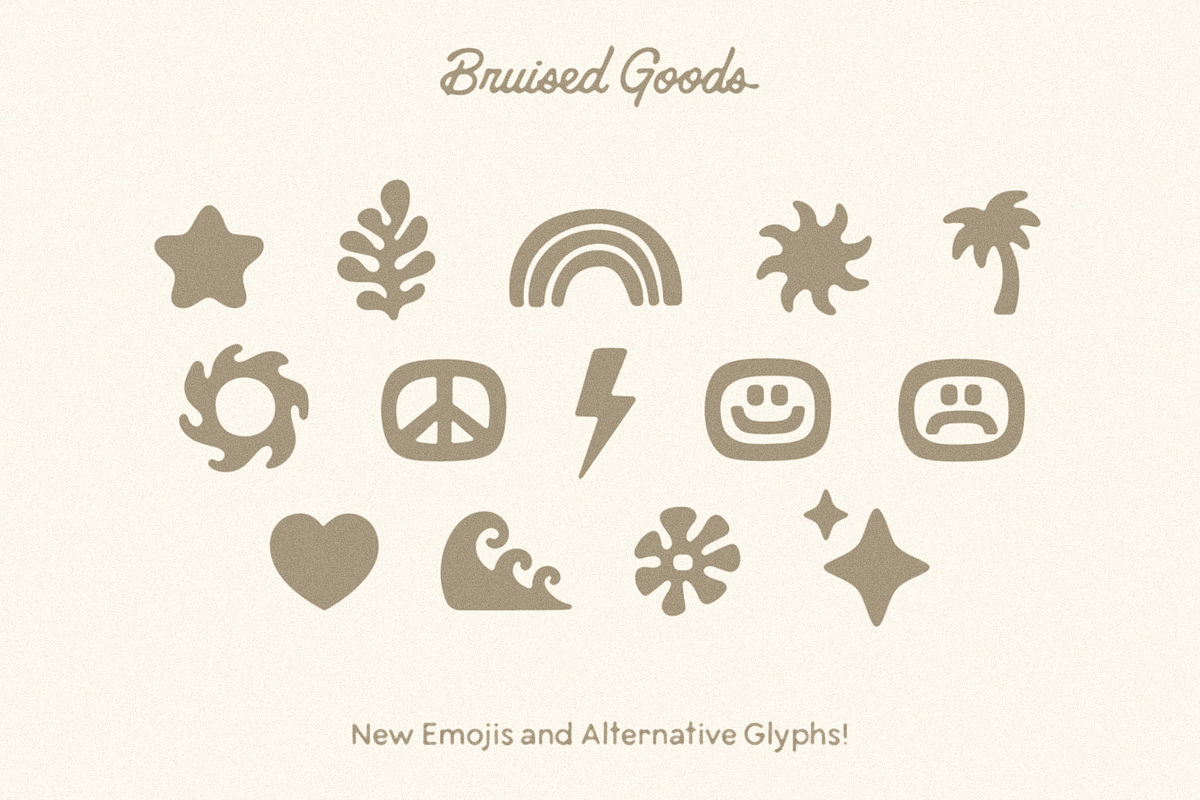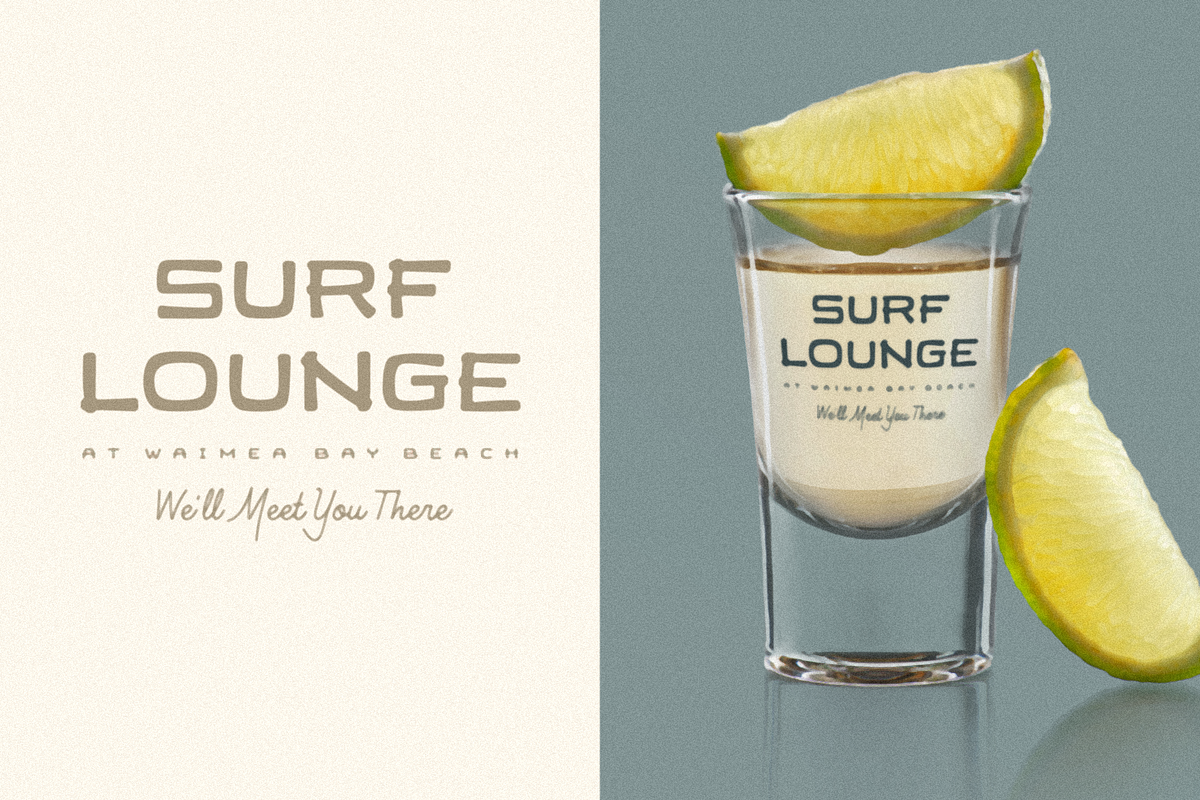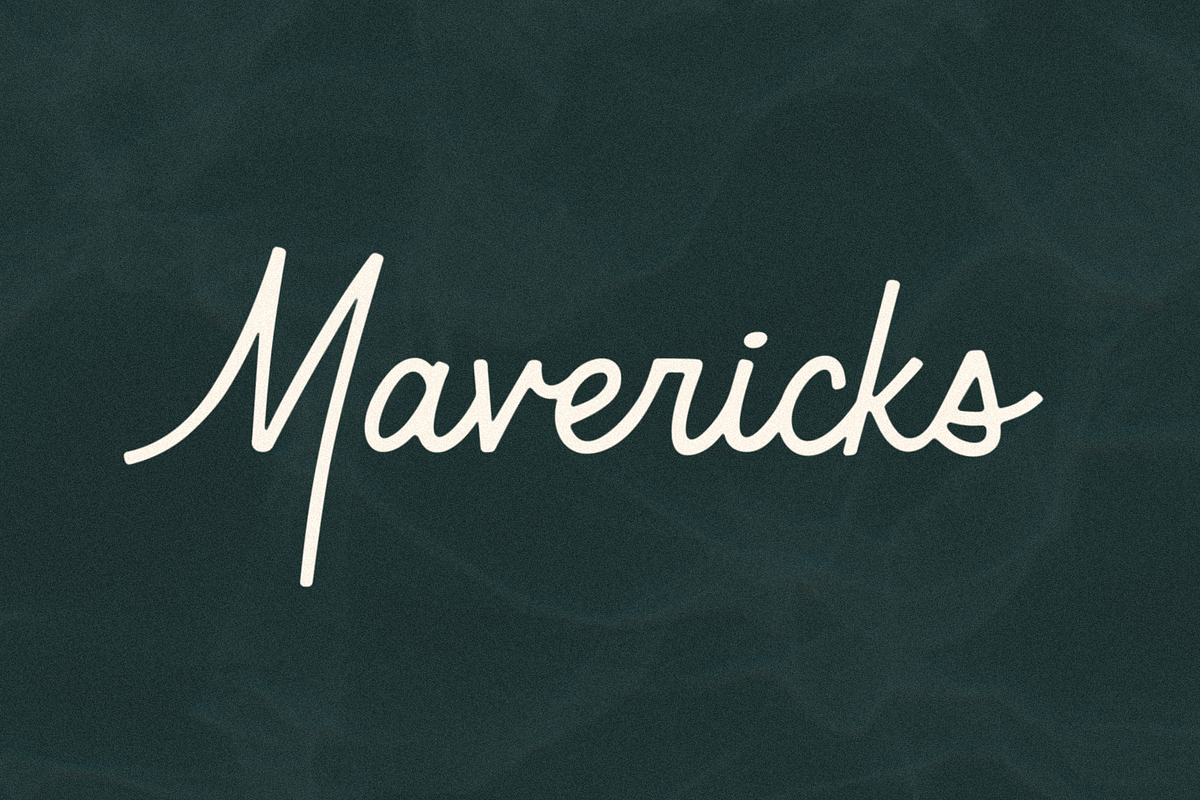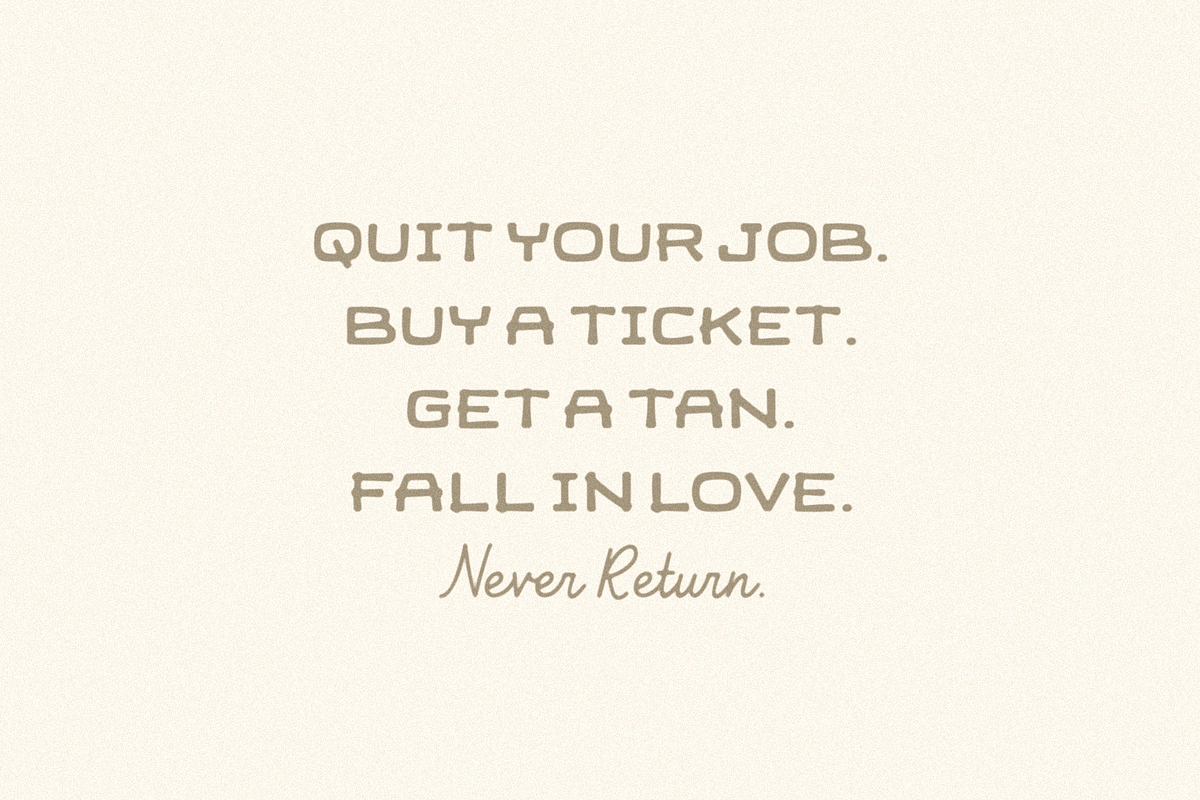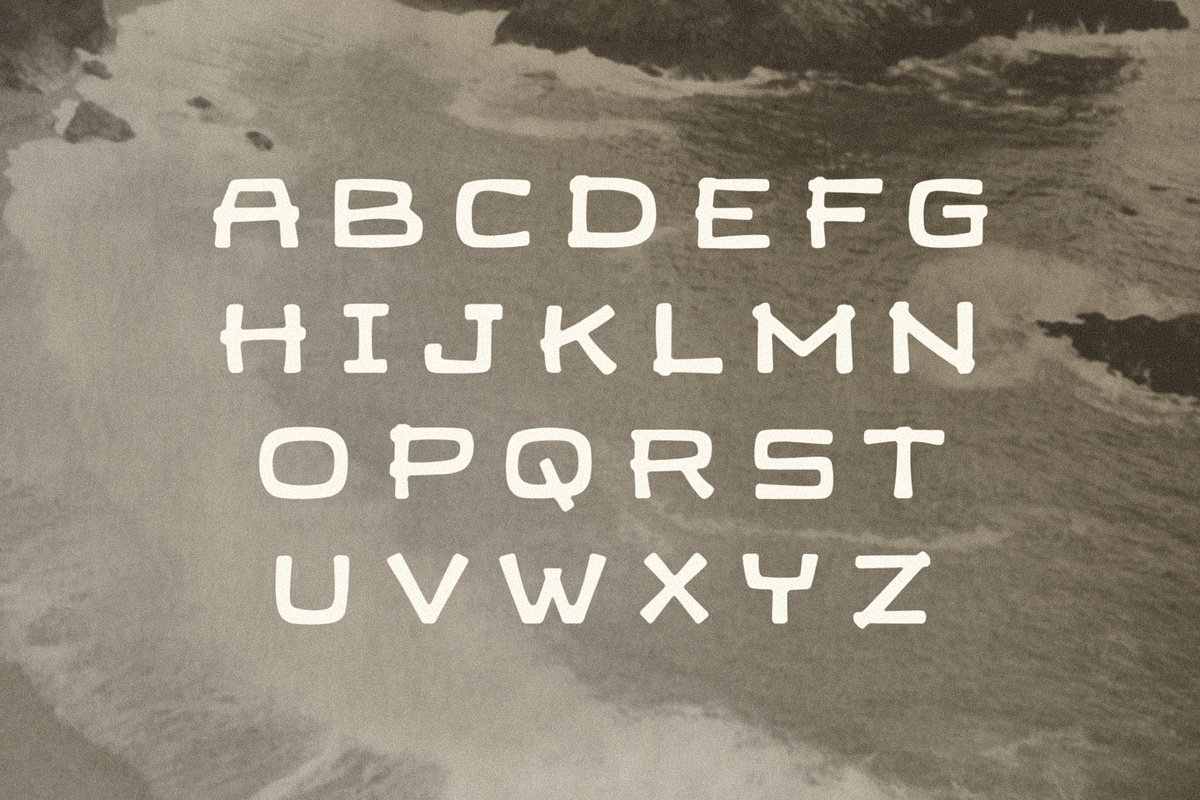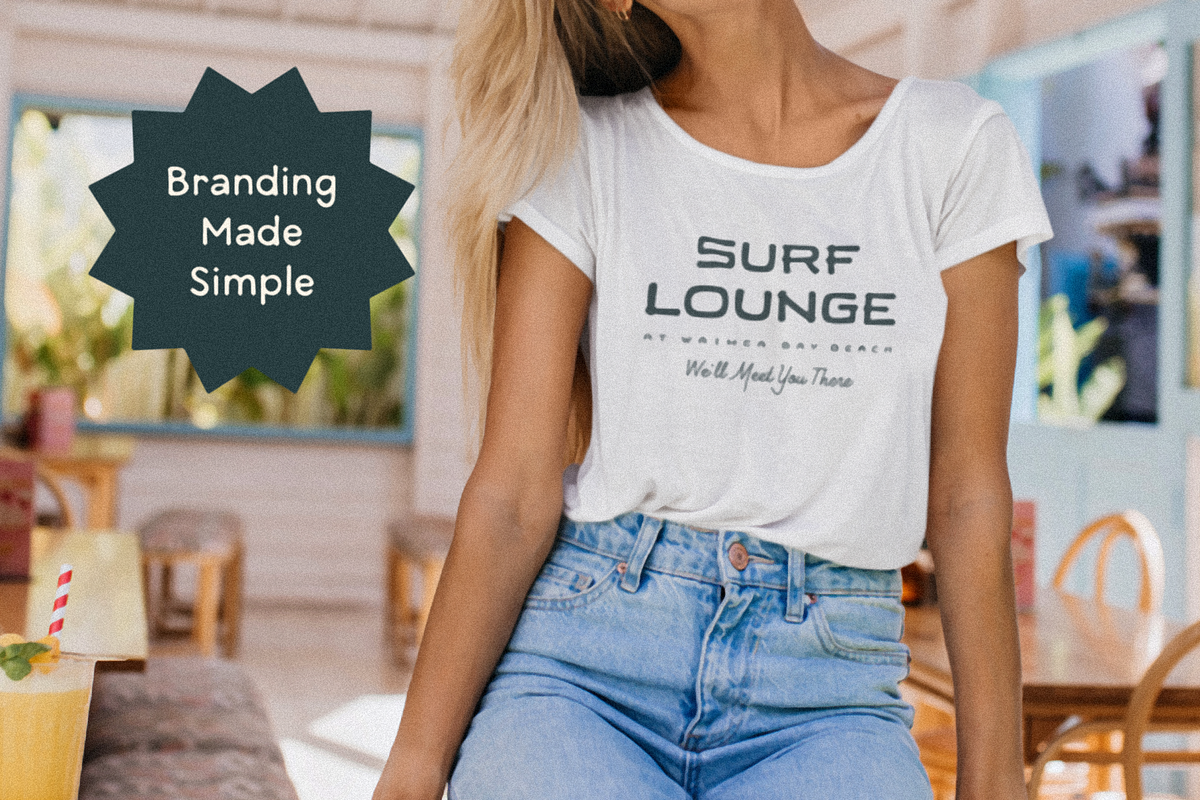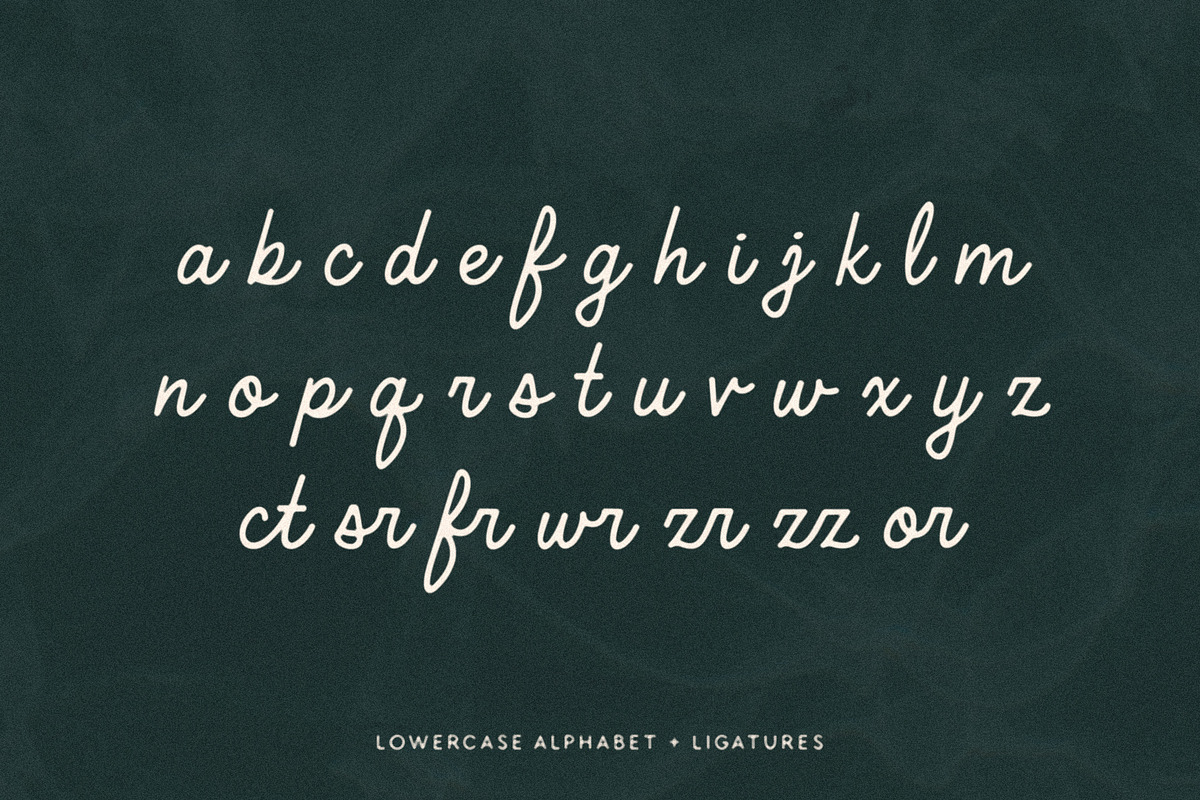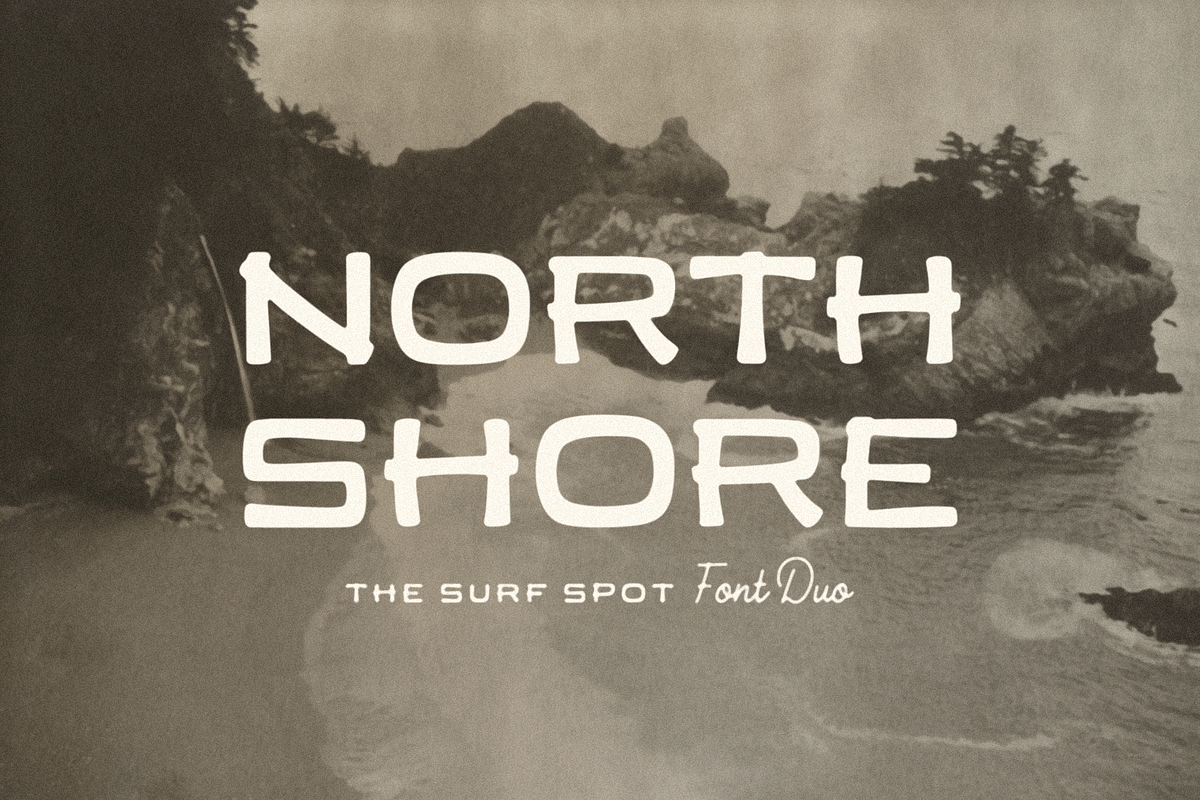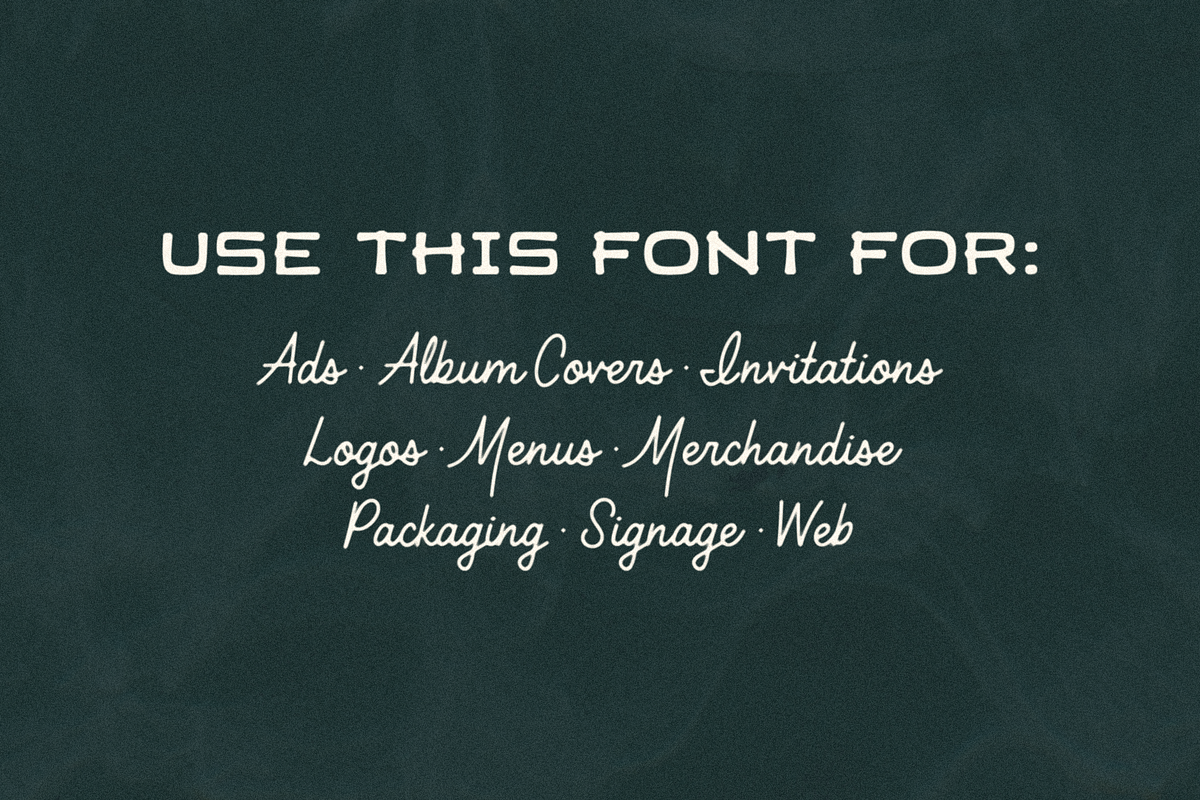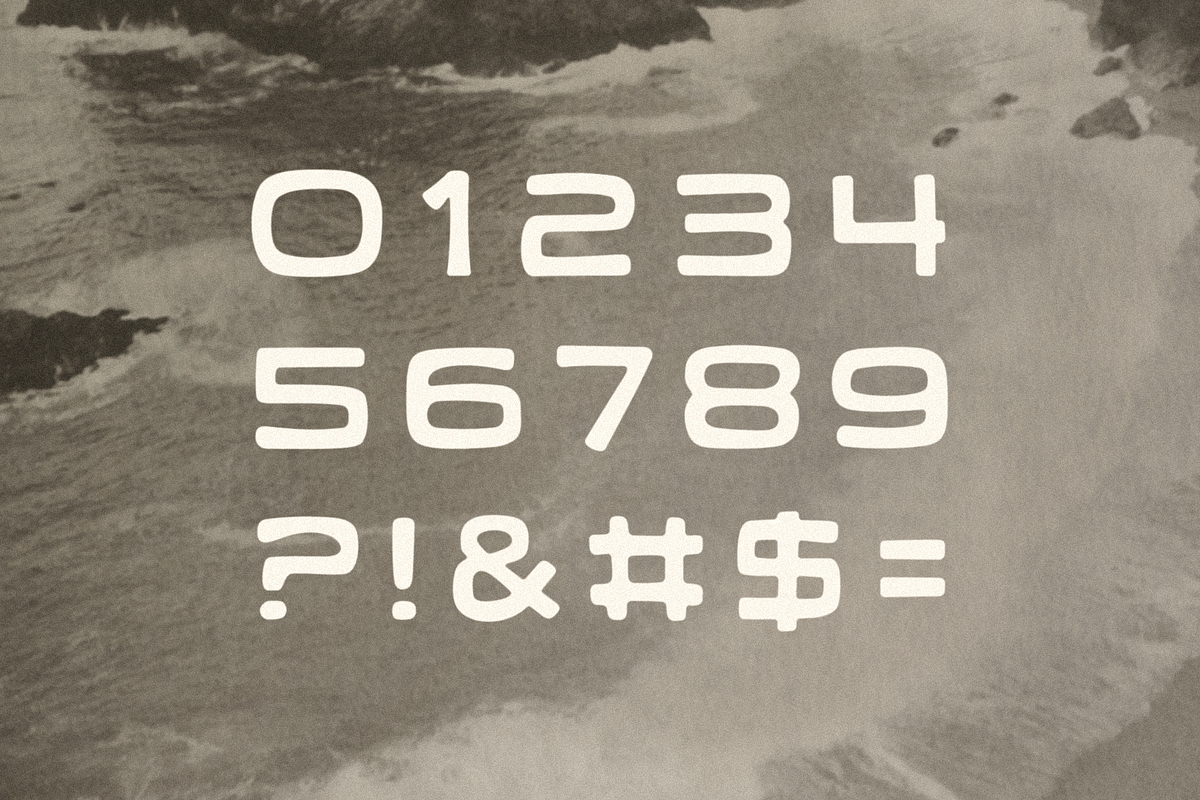
North Shore + Mavericks
NORTH SHORE + MAVERICKS – The ultimate Hawaiian surf spot font duo, both groovy and mid century inspired. Designed by Lauren Kilbane.
North Shore:
- Tropical Display Font
- 204 Glyphs Total: Uppercase ONLY, Numbers, Symbols, Punctuation, & Language Support.
- Language Support: Danish, English, French, German, Irish, Italian, Portuguese, Spanish, Swedish, & Swiss German.
Mavericks:
- Hand Lettered Script Font
- 257 Glyphs: Uppercase, Lowercase, Numbers, Symbols, Punctuation, & Language Support.
- Language Support: Danish, English, French, German, Irish, Italian, Portuguese, Spanish, Swedish, & Swiss German.